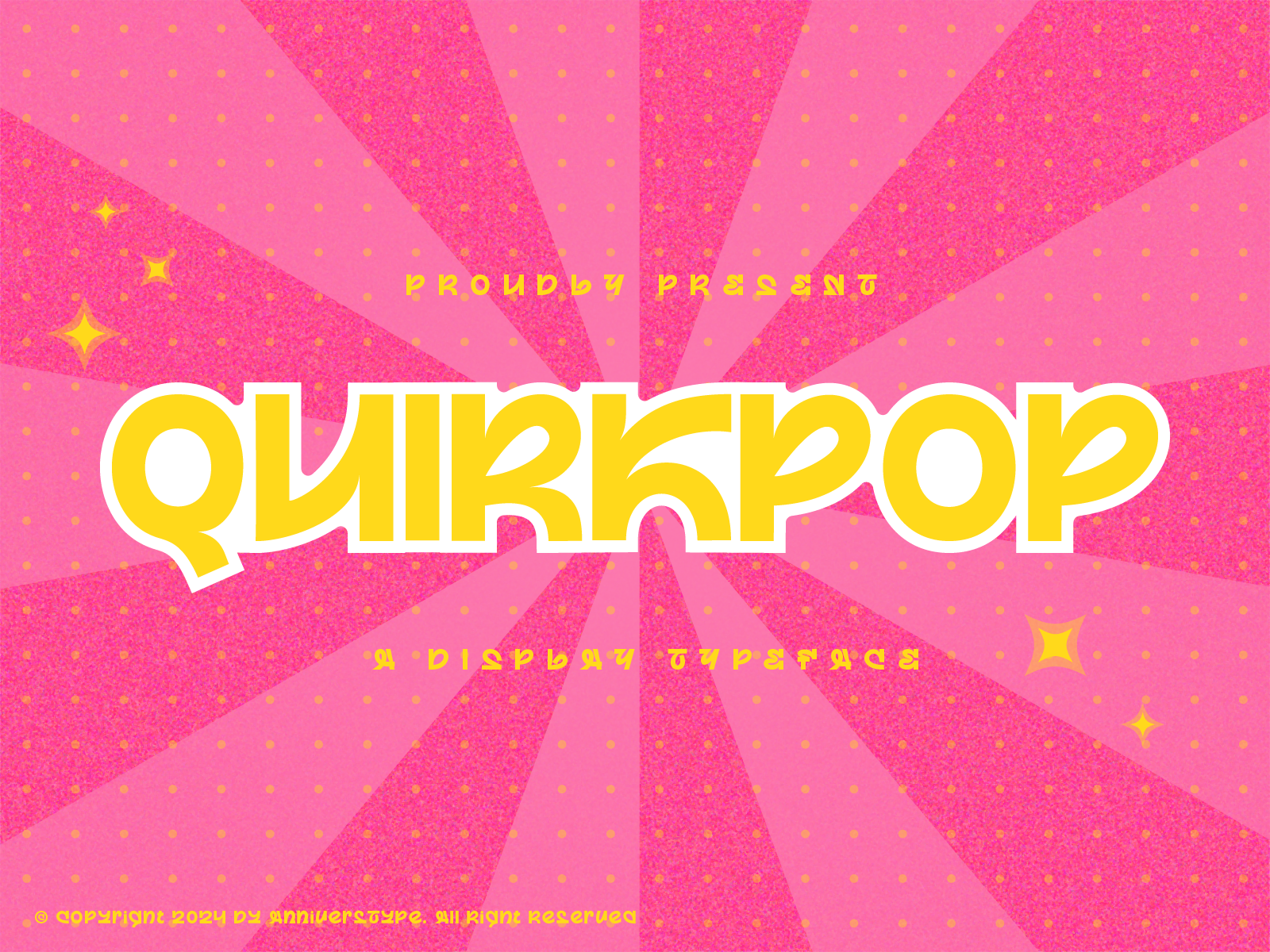
Quirkpop Display Typeface
The Quirkpop Display Typeface brings retro charm and pop style to any design, making it perfect for projects that want to stand out. Ideal for promotional posters, banners, and event materials, Quirkpop also adds personality to merchandise like t-shirts, tote bags, and other fashion items. With its unique flair, it's a great fit for logos and branding aimed at vintage or playful vibes, as well as book and magazine covers inspired by 80s and 90s culture. Use Quirkpop for product packaging, social media content, or even invitation designs to captivate a young, style-conscious audience.
- uppercase and lowercase
- numerals and punctuation
- OpenType features (ligatures and alternates)